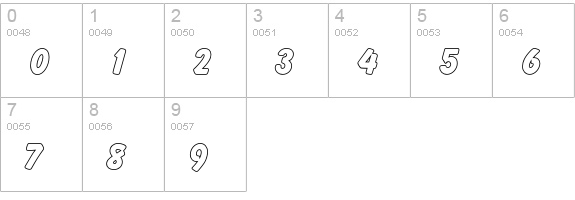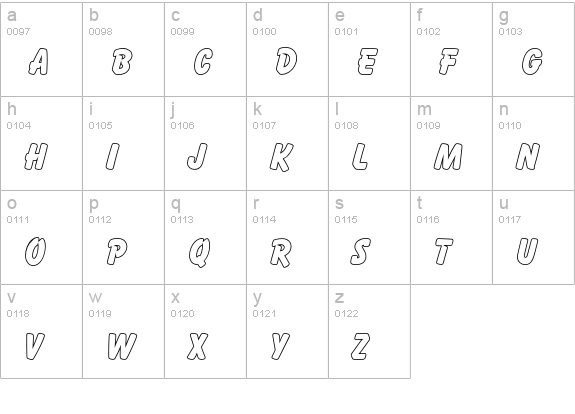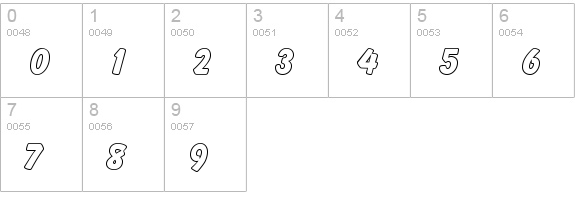
Balloon Outline P Extra Bold Font Details
Balloon Outline P Extra Bold is a strong, high-contrast variant in the Balloon typeface family \xE2\x80\x94 well suited to headlines, attention-grabbing titles, and strong calls-to-action.
Introducing Balloon Outline P Extra Bold font, a striking display typeface that exudes boldness and creativity. With its eye-catching balloon-like outlines, this font is perfect for making a statement in headlines, posters, and other design projects. The thick strokes and playful design of Balloon Outline P Extra Bold will surely capture attention and add a touch of whimsy to your designs. Best of all, Balloon Outline P Extra Bold font is available for free download at FontsMarket.com. This means you can easily add this unique and expressive font to your collection without any cost. Don't miss the opportunity to enhance your designs with the playful charm of Balloon Outline P Extra Bold font today!